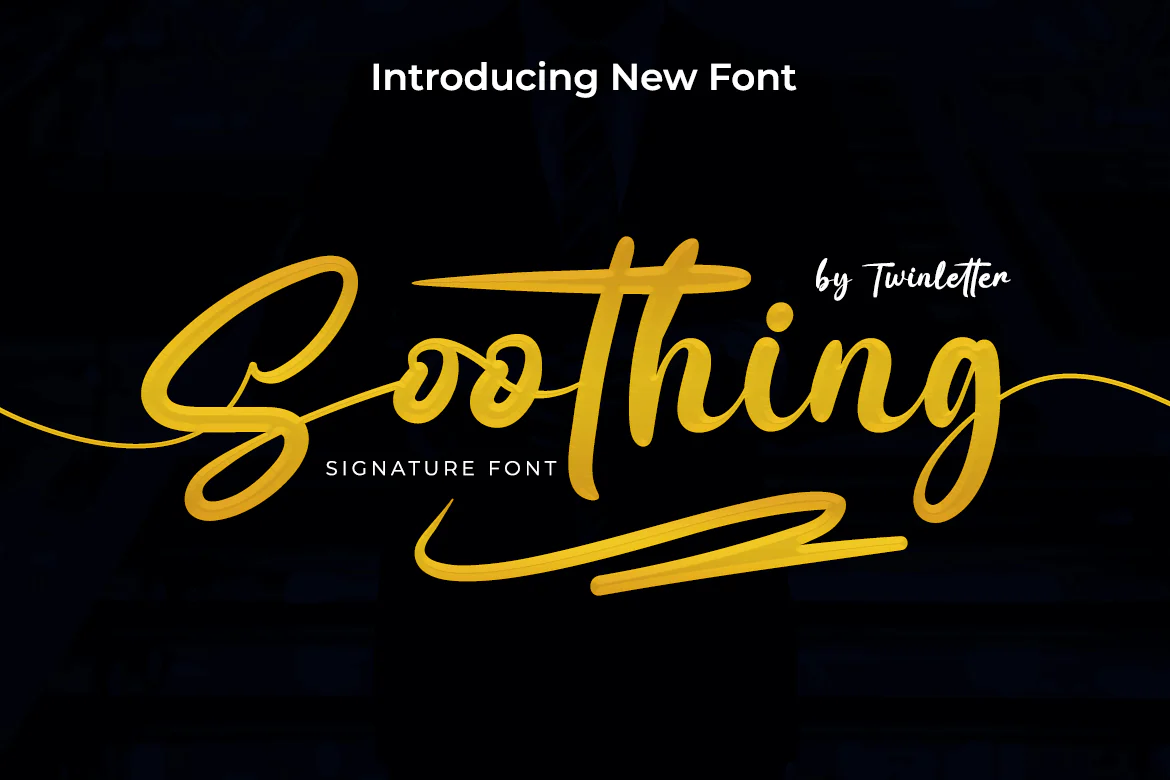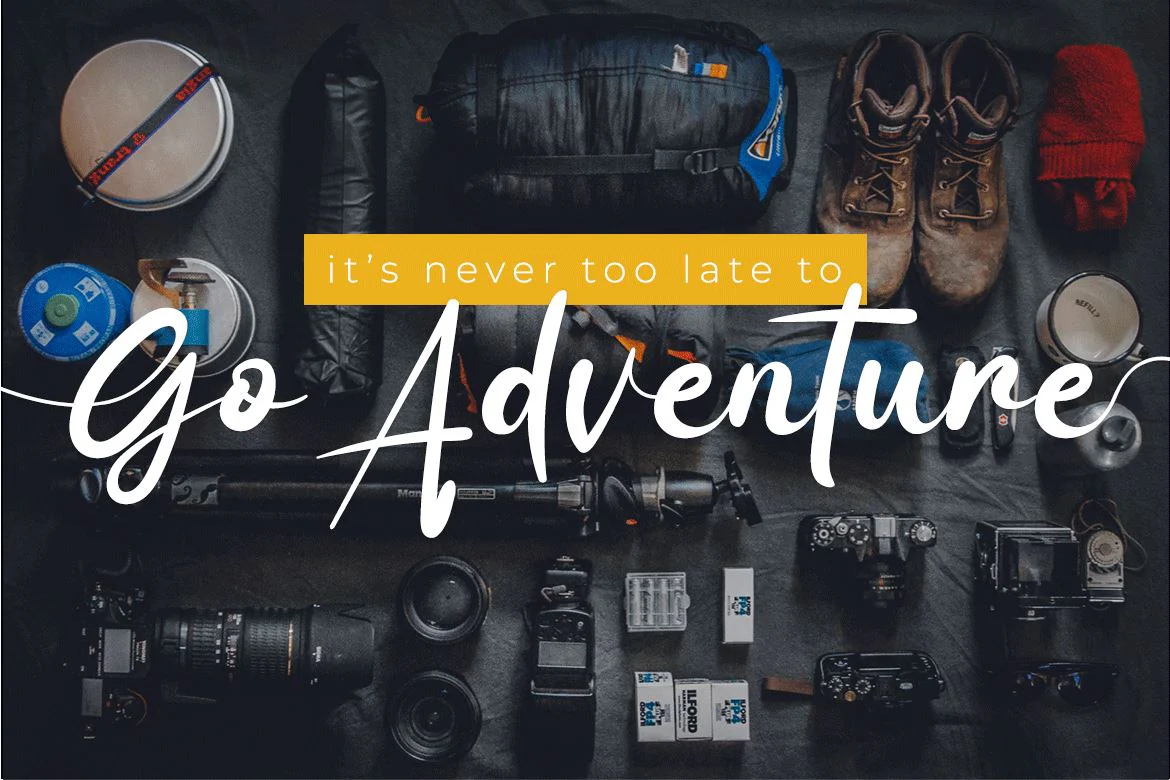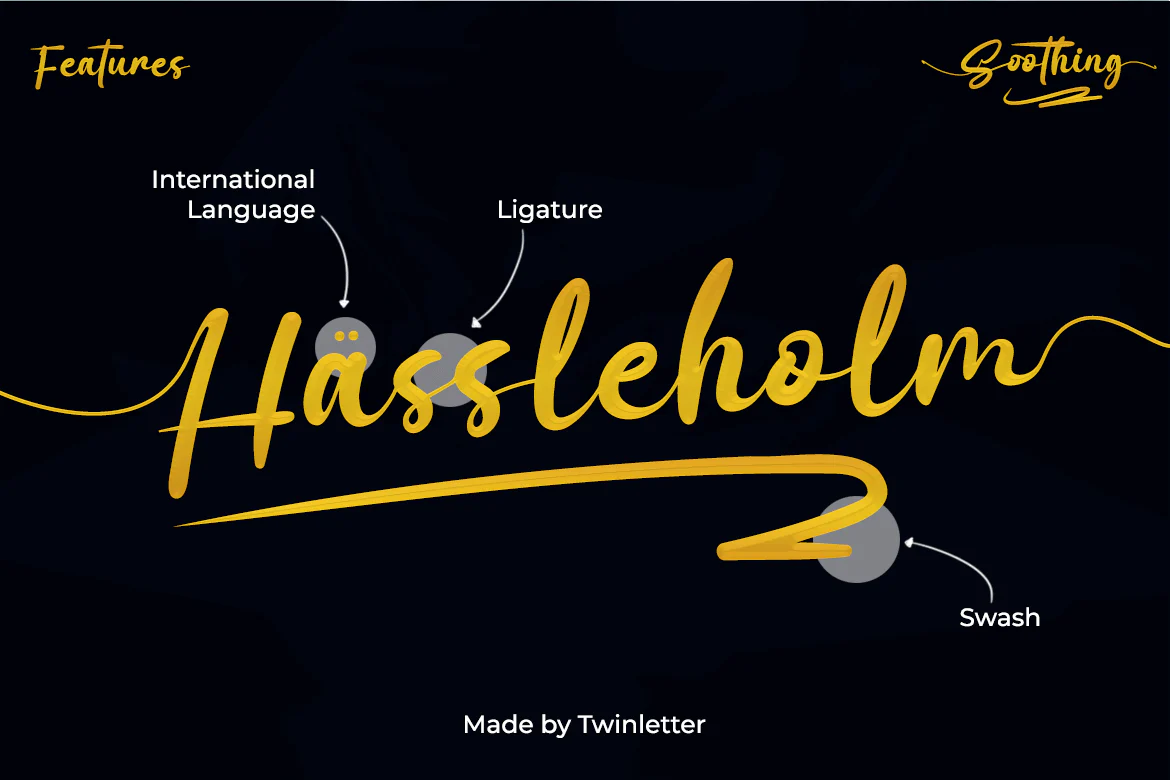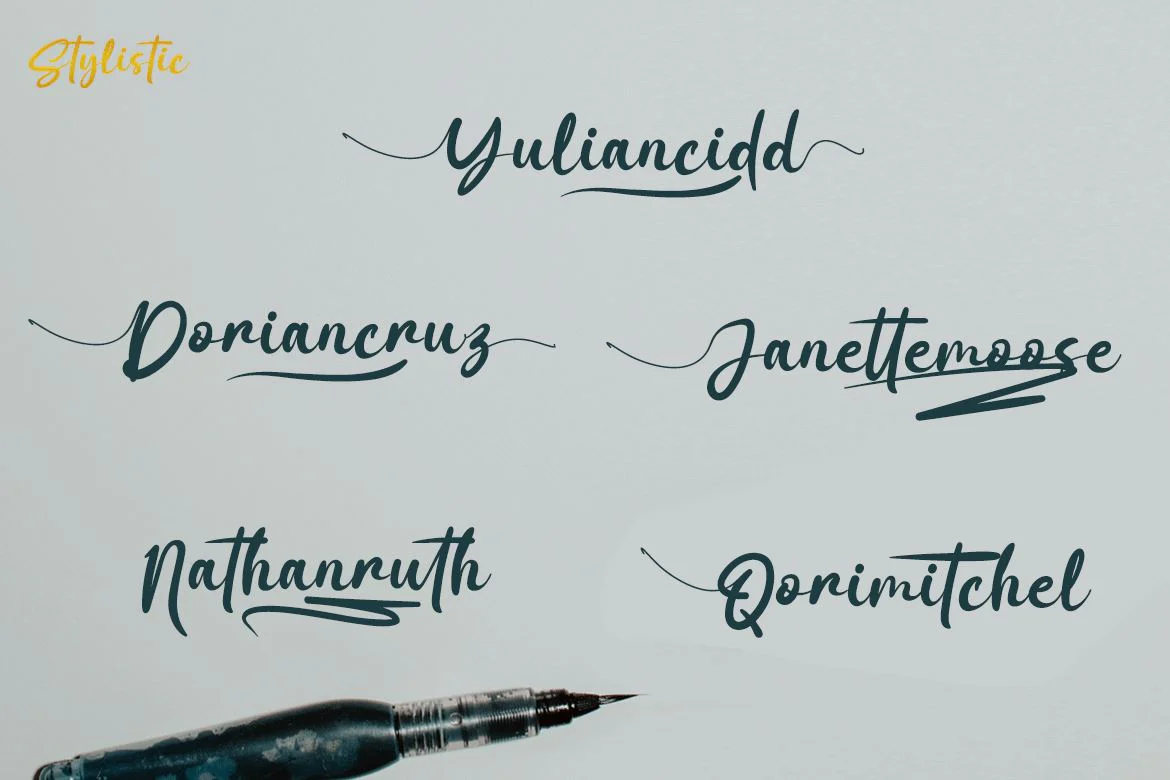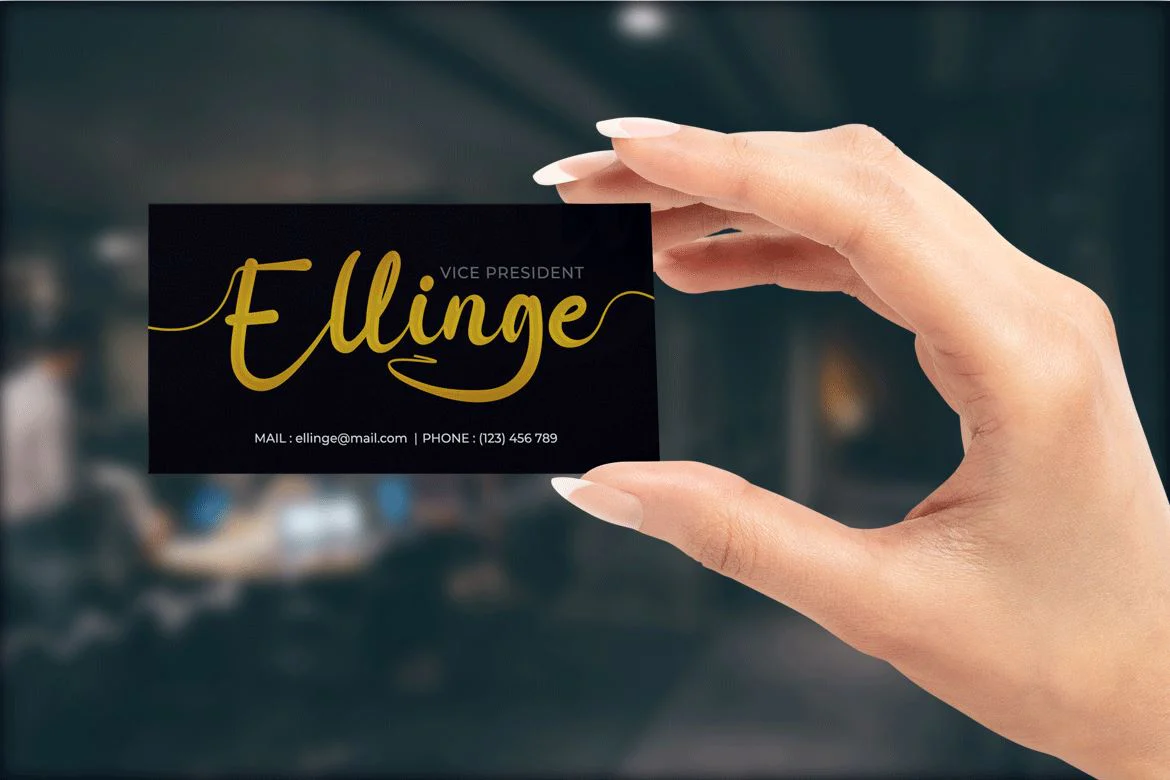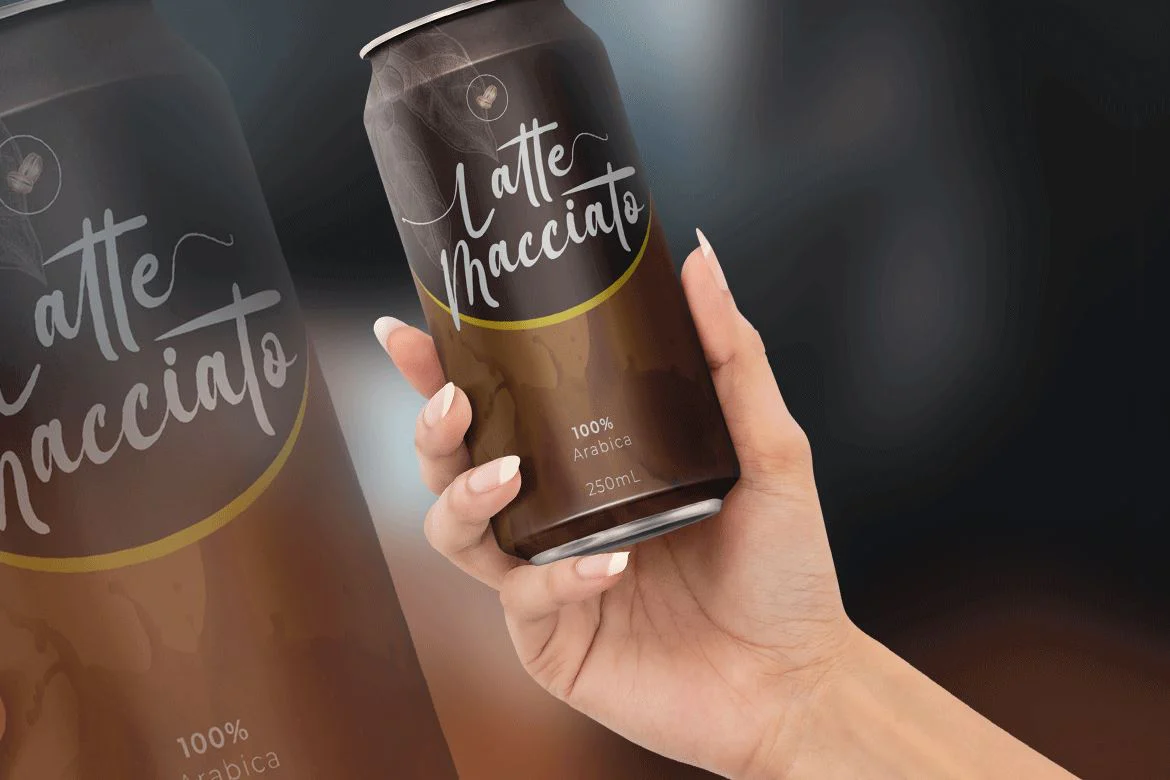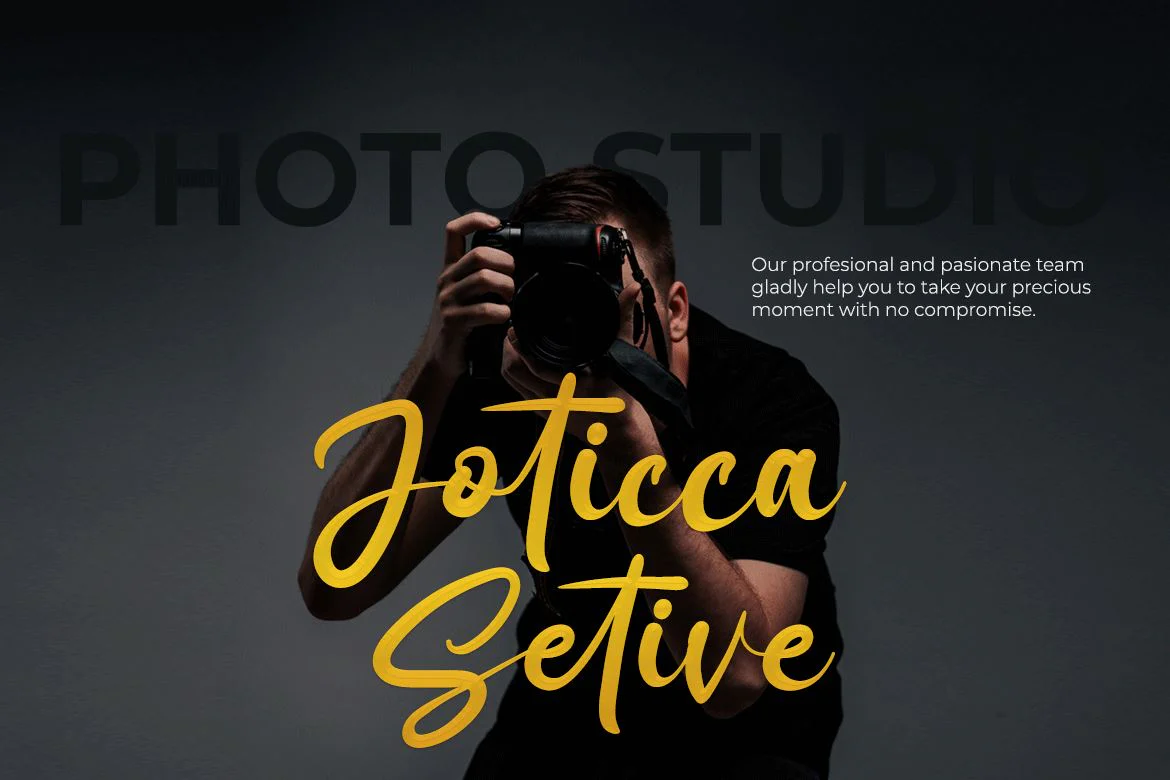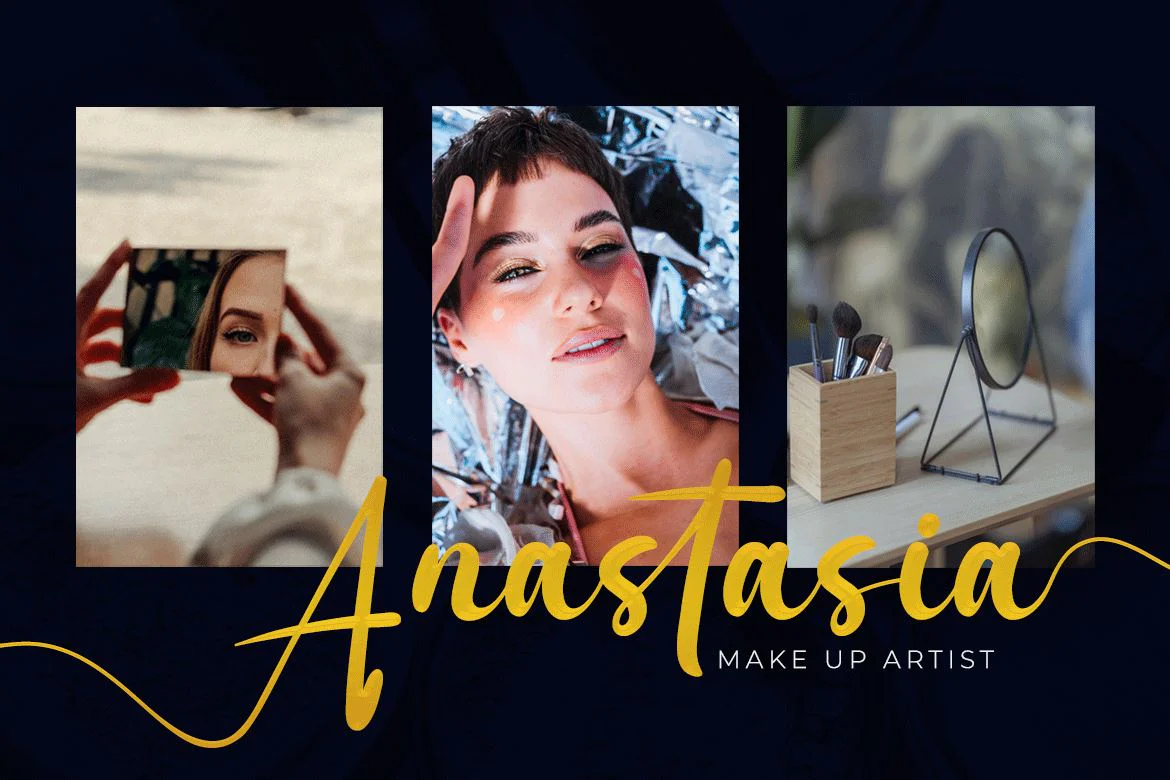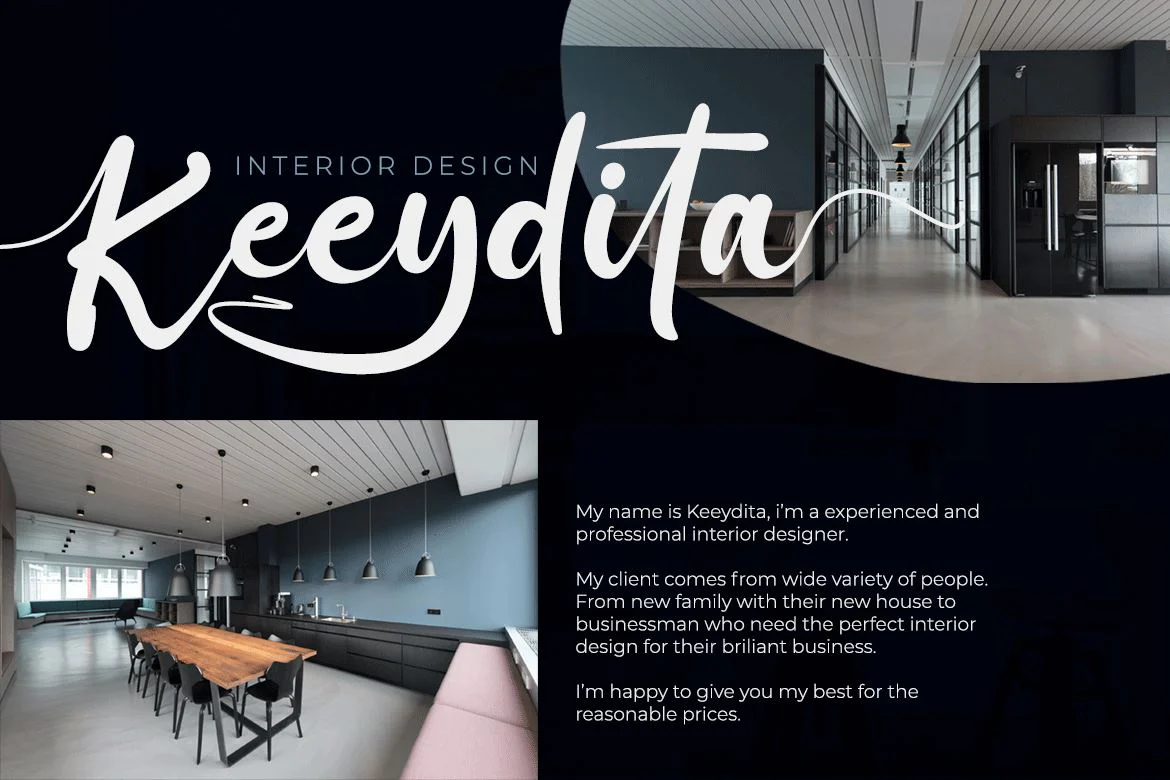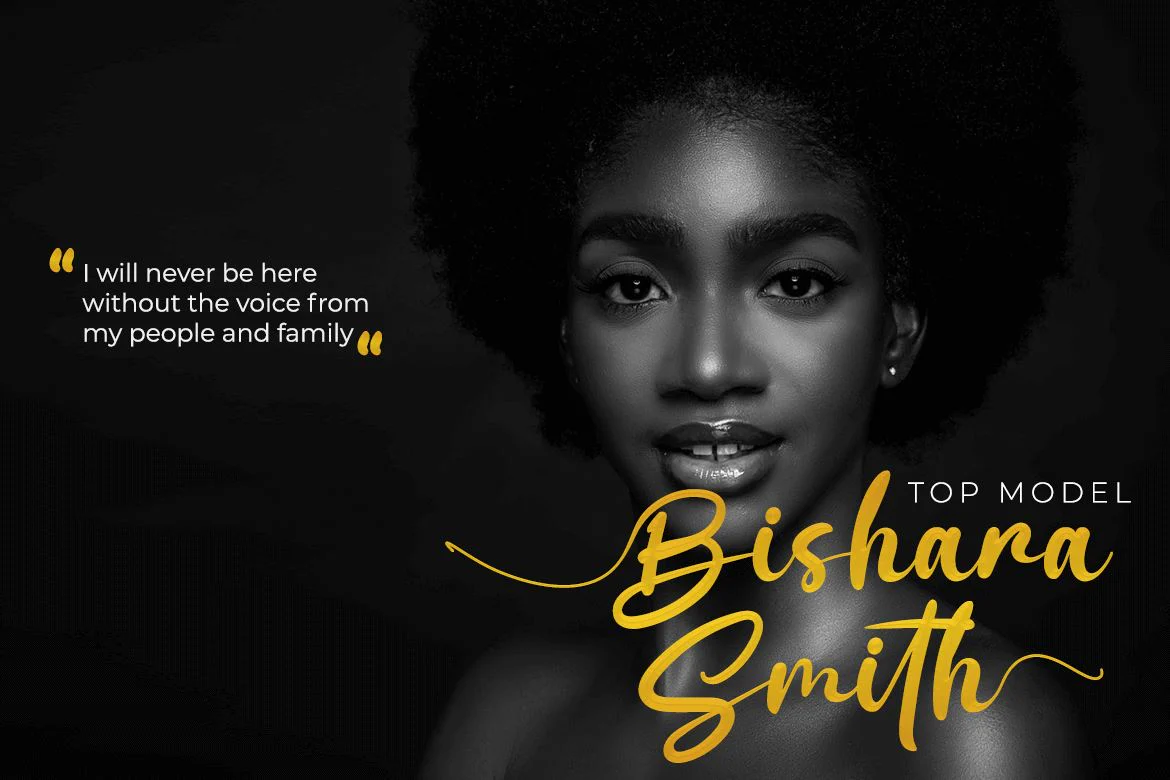
Soothing signature font
Soothing is a signature font created in elegant modern handwriting, with a natural and stylish flow.
This font has the perfect shape for your personal branding and business casual designs.
This font is perfect for business cards, photography studios, signatures, interior designs, names of models, coffee late, traveling, weddings, cosmetics, jewelry.
Start using this font to add an authentic and heartfelt vibe to any design project.
Soothing is a signature font created in elegant modern handwriting, with a natural and stylish flow.
This font has the perfect shape for your personal branding and business casual designs.
This font is perfect for business cards, photography studios, signatures, interior designs, names of models, coffee late, traveling, weddings, cosmetics, jewelry.
Start using this font to add an authentic and heartfelt vibe to any design project.